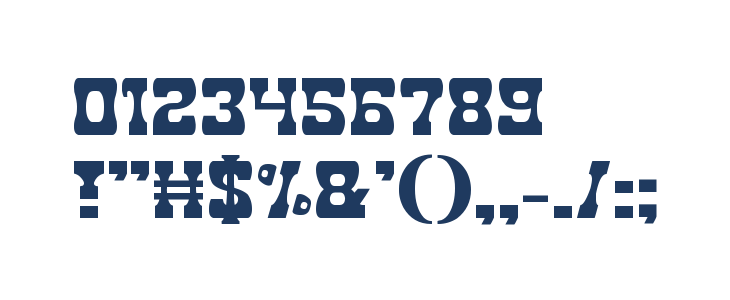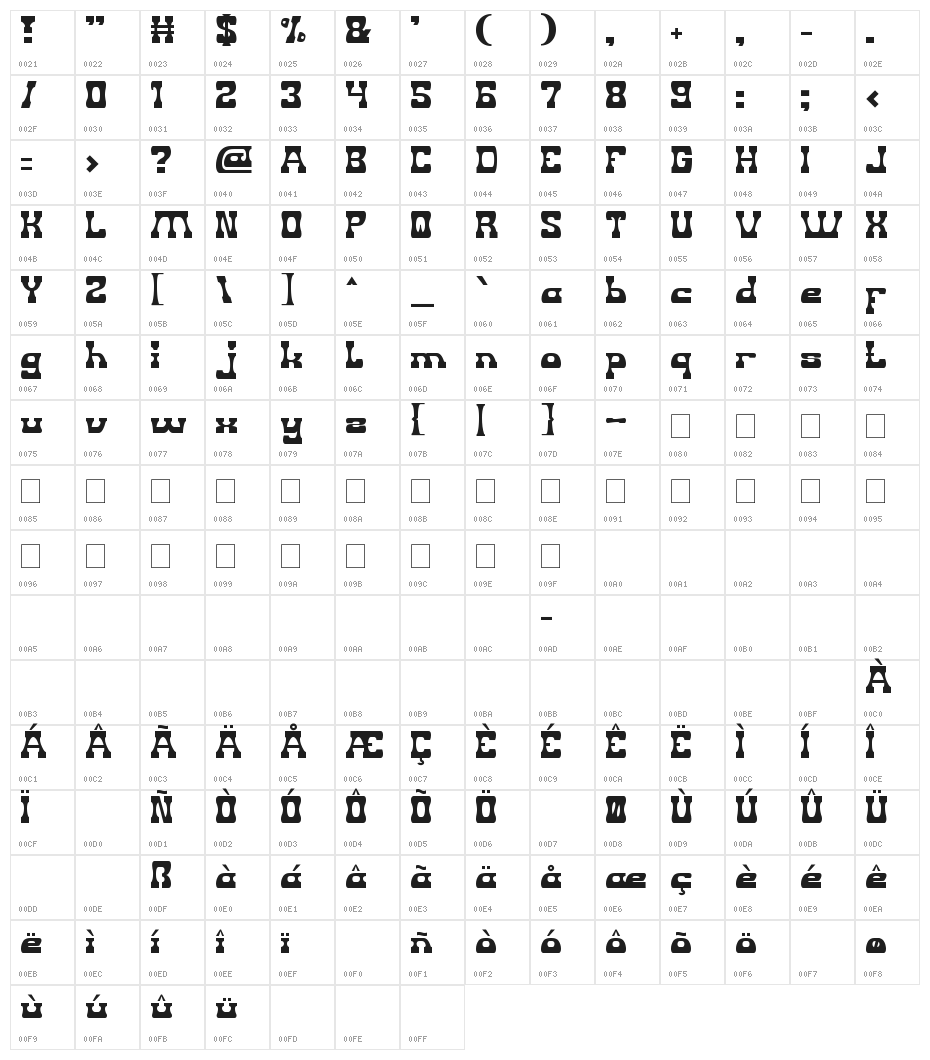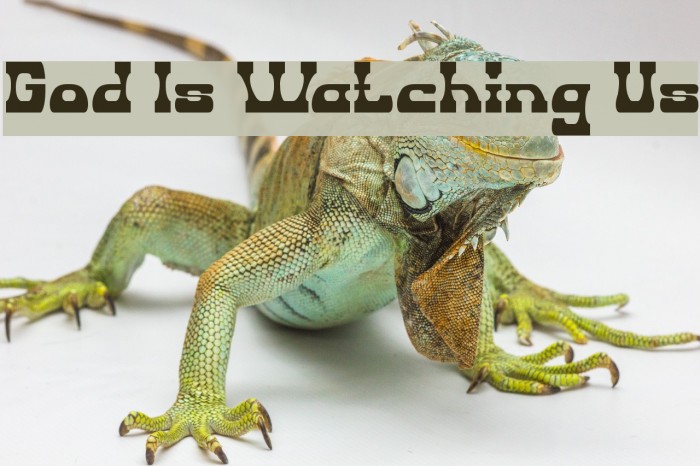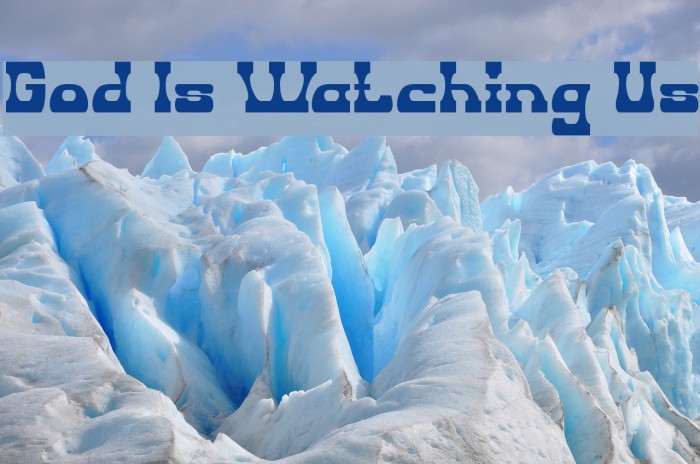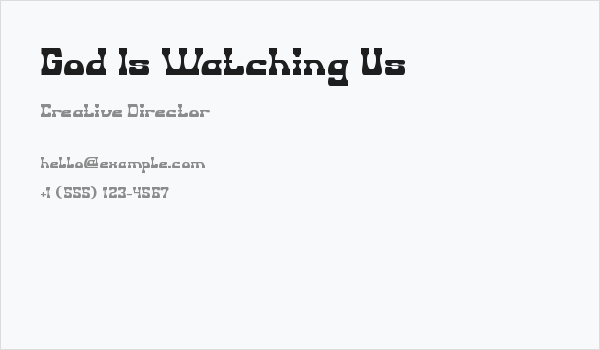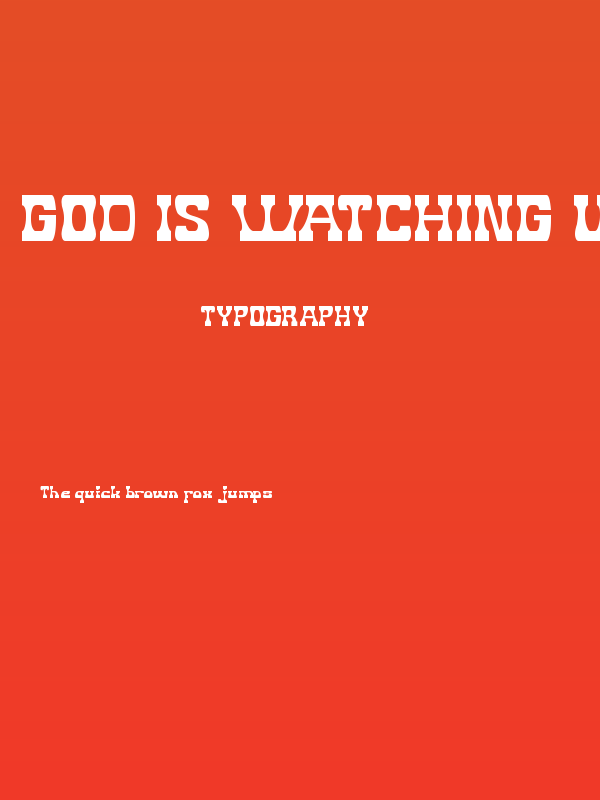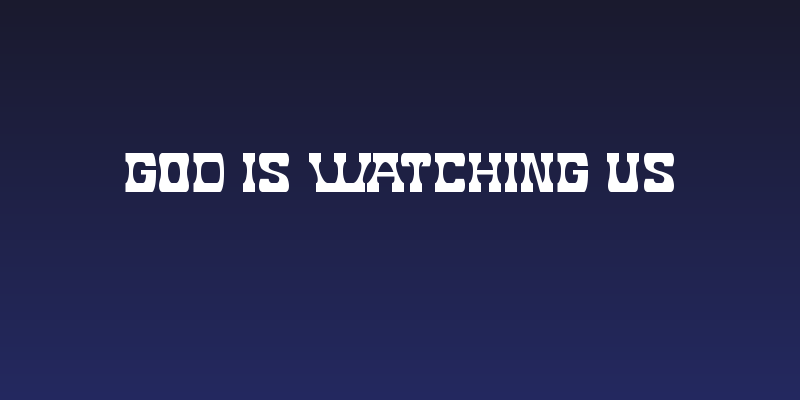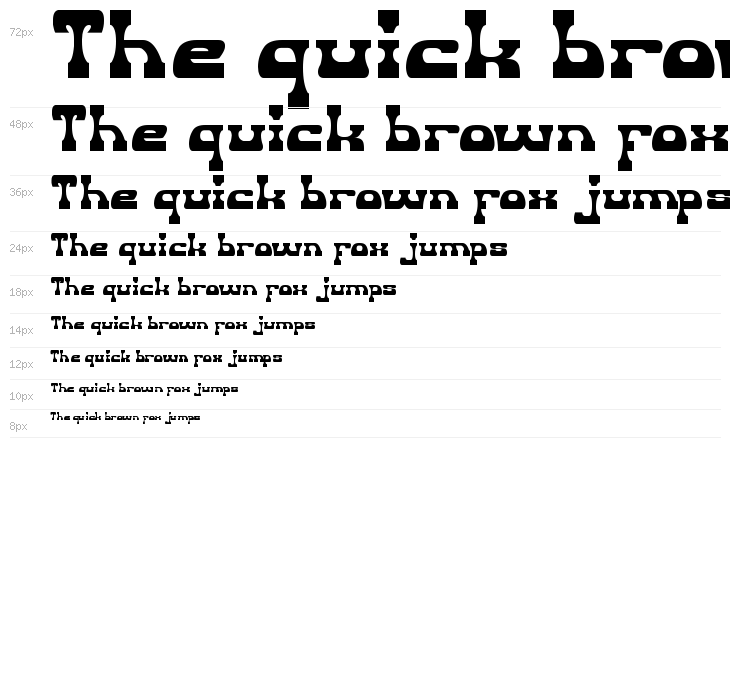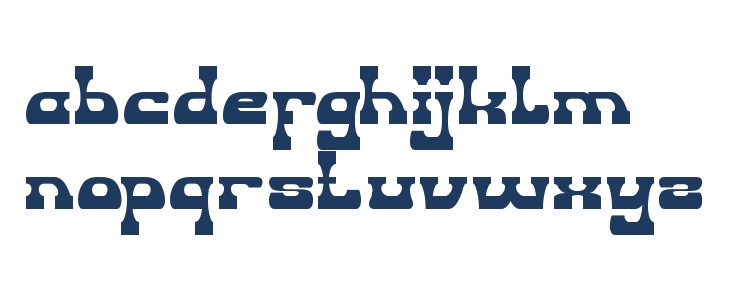
God Is Watching Us Font
God Is Watching Us Description
This font features a bold and striking design with thick, block-like characters that convey a sense of strength and stability. The letters have a unique, slightly condensed form with distinct cutouts and angular edges, giving them a modern yet industrial feel. The uppercase and lowercase letters maintain a consistent style, while the numerals and special characters complement the overall aesthetic with their robust and impactful appearance. The font's high contrast in stroke thickness enhances its readability and visual appeal, making it suitable for attention-grabbing designs.